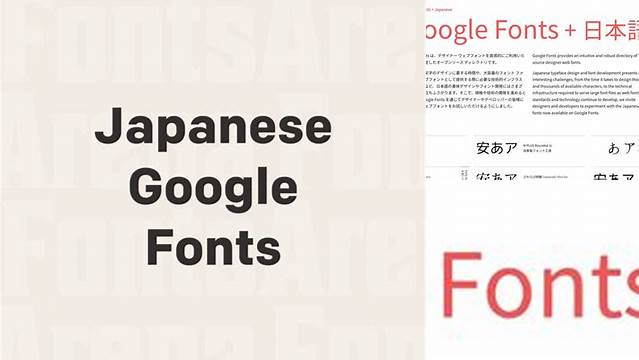
Google Fonts For Japanese: A Complete Guide
Hey guys! Ever tried to make your website look amazing, but struggled with Japanese text? Finding the right fonts that look good and work well can be a real headache. That's where Google Fonts for Japanese come in. This guide will break down everything you need to know, from picking the perfect font to making sure it loads quickly. We'll explore the best fonts, how to use them, and even dive into some cool tips and tricks. So, let's get started and make your website shine with beautiful Japanese typography!
H2: Why Choose Google Fonts for Japanese?
Another massive advantage is the reliability and performance. Google Fonts are hosted on Google's super-fast servers, ensuring that your fonts load quickly, no matter where your visitors are in the world. This is crucial for user experience. Slow-loading fonts can frustrate users and make your website look unprofessional. With Google Fonts, you can be confident that your fonts will load smoothly, even on mobile devices. Furthermore, Google Fonts are constantly updated and improved. They're always working to optimize font delivery and ensure compatibility with the latest browsers and devices. This means you can trust that your website will look great and function properly for years to come. Choosing Google Fonts also gives you a wide variety of styles and weights to choose from. You can find fonts that are perfect for everything from headlines to body text. This flexibility lets you create a unique and engaging design that reflects your brand's personality. And don't forget about accessibility. Google Fonts are designed to be accessible to everyone, including users with disabilities. They offer options for different font sizes, styles, and weights, ensuring that your website is readable and usable for all visitors. So, in a nutshell, Google Fonts are a fantastic choice for anyone looking for a free, reliable, and easy-to-use way to add beautiful Japanese typography to their website. You get convenience, performance, and a wide range of options – all for free! Now, let's dive into how to find the perfect fonts for your project.
H2: The Best Google Fonts for Japanese: Top Picks
Now, let's get to the good stuff: which Google Fonts are the best for Japanese text? Choosing the right font can make or break the look and feel of your website, so picking the perfect ones is super important. Here are a few top picks that are popular and work great. First up is Noto Sans Japanese. This font is part of the Noto family, which aims to support all languages with a consistent look and feel. Noto Sans Japanese is clean, modern, and highly readable, making it perfect for body text. It's also very versatile, working well for both web and print. You can use it for everything from articles and blog posts to menus and product descriptions. Another excellent choice is Rounded Mplus 1c. This font has a softer, more playful feel, thanks to its rounded terminals. It's great for headings, titles, and anything where you want to add a touch of personality. Rounded Mplus 1c is also very readable, even at smaller sizes. It's perfect for sites that want a friendly and approachable vibe. Next, we have Zen Kaku Gothic New. This font has a modern, geometric look, perfect for websites that want a clean and contemporary aesthetic. Zen Kaku Gothic New is also highly legible, making it ideal for both headings and body text. It's a great choice for tech companies, startups, and any site that wants to project a professional image. For something a bit more classic, check out Kosugi Maru. This font is a variation of the Kosugi font, with a more rounded appearance. Kosugi Maru is a good choice for headlines and display text, especially if you want a traditional feel. It works well for websites related to Japanese culture, art, or cuisine. And finally, don't overlook Yusei Magic. This is a more artistic font, with a unique and eye-catching style. Yusei Magic is perfect for headlines, logos, and any areas where you want to make a bold statement. However, be mindful of its readability for body text. Remember, the best font depends on your specific needs and the overall design of your website. Consider the tone you want to convey, the target audience, and the readability of the font at different sizes. Experiment with different fonts and see which ones look best for your project. It’s also a good practice to combine multiple fonts for a dynamic visual experience, such as using one for headings and another for the body. You'll find the perfect Google Font for your Japanese text with a little experimentation.
H3: Noto Sans Japanese: A Detailed Look
Let's zoom in on Noto Sans Japanese. This font is a workhorse and a great place to start when considering Google Fonts for Japanese. It’s a part of the larger Noto family designed by Google to support a vast range of languages. The goal? To create a consistent and harmonious visual experience across different scripts. Noto Sans Japanese is specifically designed to be highly readable, even in small sizes. This is crucial for website design because you want your visitors to be able to effortlessly read your content. It's a sans-serif font, meaning it doesn't have the small decorative strokes (serifs) at the end of the letters. This gives it a clean, modern appearance, which is perfect for websites that want a contemporary feel. Its design prioritizes clarity and simplicity. This makes it a great choice for body text, headings, and even user interface elements. The versatility of Noto Sans Japanese is another key advantage. It works well in various contexts, from articles and blog posts to product descriptions and menus. You can use it in both digital and print materials without compromising readability or style. Google offers multiple weights and styles of Noto Sans Japanese, including regular, bold, and italic. This allows you to create a hierarchy of information on your website. Use bold for headings to grab attention and italic for emphasis. The availability of these weights and styles enables you to fine-tune the visual presentation of your content and create a better user experience. The broad support for Japanese characters is another significant benefit. Noto Sans Japanese covers a wide range of Japanese characters, including hiragana, katakana, and kanji. This ensures that your content looks accurate and professional. The font is constantly updated to include new characters and glyphs. This ensures that it remains up-to-date with the evolving requirements of the Japanese language. Noto Sans Japanese is free and open source, making it accessible to everyone. You can download it from Google Fonts or embed it directly into your website. Its open-source nature means you can modify and adapt the font to suit your specific needs. This is a significant advantage for developers who want to customize the appearance of their website. Its easy implementation makes it a top choice. You can quickly and easily integrate it into your website's HTML or CSS. The simplicity of the integration process allows you to focus on content creation and website design, rather than getting bogged down in technical complexities.
H3: Rounded Mplus 1c: A Friendly Font Choice
Alright, let's talk about Rounded Mplus 1c, another awesome option when exploring Google Fonts for Japanese. This font brings a unique vibe to your website with its soft, approachable design. The